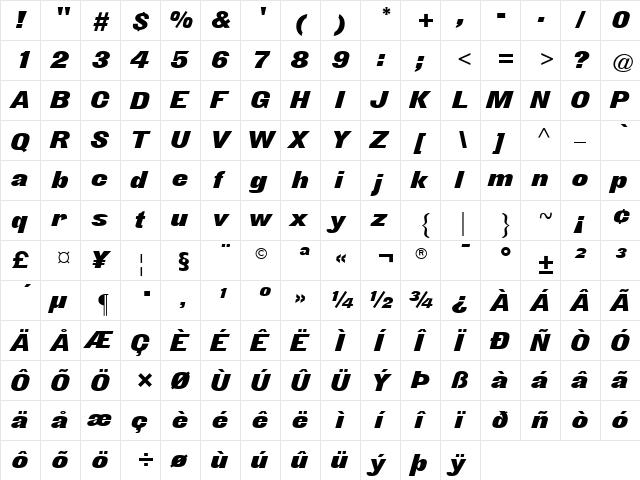
ATDerek Italic
Design Context for ATDerek Typeface
ATDerek offers clean, dependable letterforms without strong stylistic allegiance, making it a practical choice for designers who need flexibility. The slanted form adds forward momentum and visual energy.